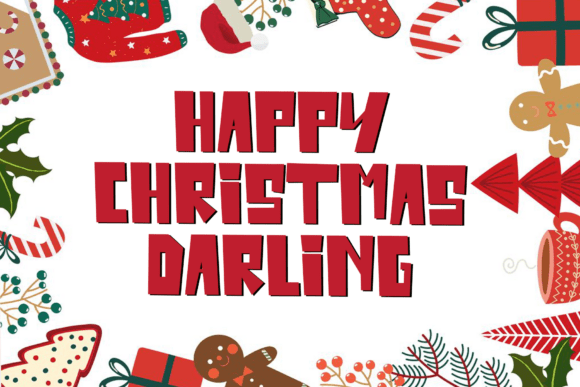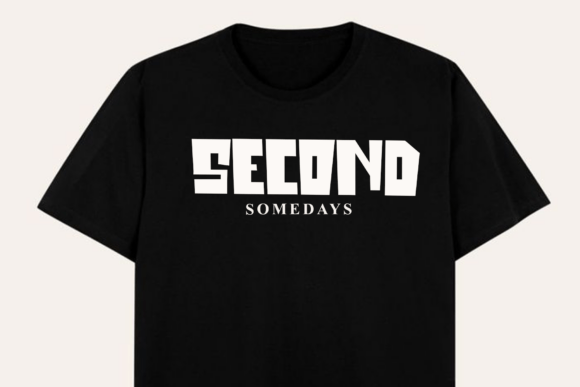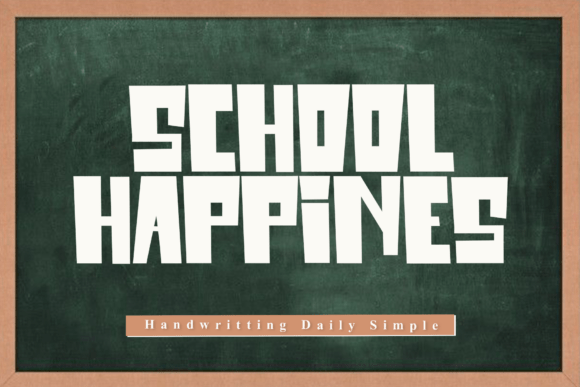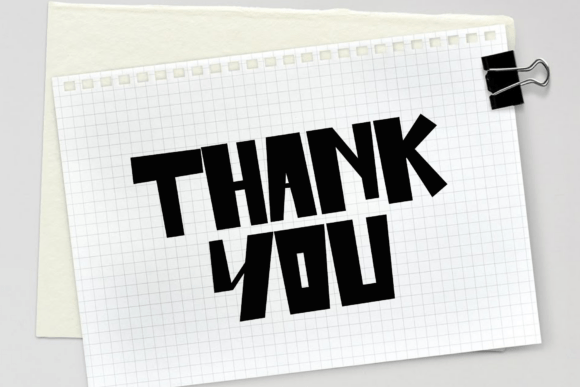
The Power of Designer Font: Elevate Your Designs with a Bold and Energetic Handwritten Style
I’ll never forget the design project that made me fall in love with the Designer font. I was working on a children’s book, and my client wanted a font that would bring the story to life. I spent hours scouring the internet for the perfect font, but nothing seemed quite right. That was until I stumbled upon Designer – a bold and energetic handwritten display font that instantly captured the playful spirit of the book. With its chunky, expressive letterforms and slightly uneven, organic edge, Designer brought a fun and spontaneous vibe to the project that my client and I both loved.
An Honest Review of Designer Font
- ✨ Unique and eye-catching design: Designer font stands out from the crowd with its bold and energetic handwritten style.
- ✅ Highly versatile: This font is perfect for a wide range of design projects, from posters and t-shirts to children’s books and social media visuals.
- 💡 Easy to read: Despite its bold and chunky design, Designer font is surprisingly easy to read, even at smaller sizes.
- 🎨 Great for creative projects: This font is ideal for designers, crafters, and creative hobbyists who want to add a personal touch to their work.
While Designer font is an amazing addition to any design project, there are a few things to keep in mind:
- 🤔 Not suitable for body text: Due to its bold and chunky design, Designer font is best used for headlines and titles rather than body text.
- ⚠️ Limited use of OpenType features: While Designer font does offer some OpenType features, it’s not as extensive as some other fonts on the market.
The Story Behind Designer Font
Designer font was created by a team of designers who wanted to create a font that would bring a fun and spontaneous vibe to any design project. Inspired by the look of marker lettering, Designer font is perfect for designs that need a bold and energetic handwritten style. Whether you’re a designer, crafter, or creative hobbyist, Designer font is a great addition to your typography toolkit.
| What is Designer font? | Designer font is a bold and energetic handwritten display font that’s perfect for designs that need a fun and spontaneous vibe. |
| What can I use Designer font for? | Designer font is perfect for a wide range of design projects, from posters and t-shirts to children’s books and social media visuals. |
| Is Designer font easy to read? | Yes, Designer font is surprisingly easy to read, even at smaller sizes. |
| Can I use Designer font for body text? | No, Designer font is best used for headlines and titles rather than body text. |